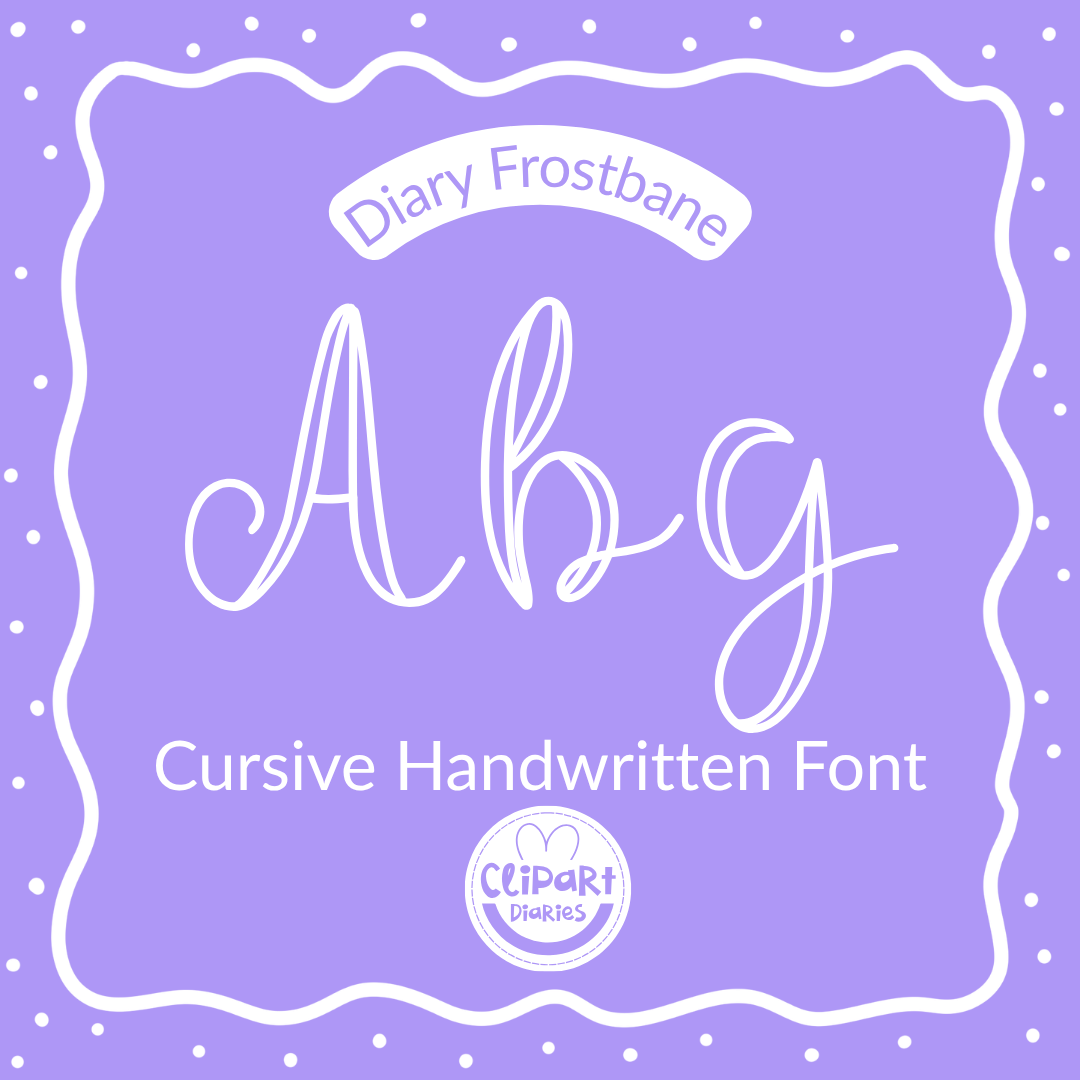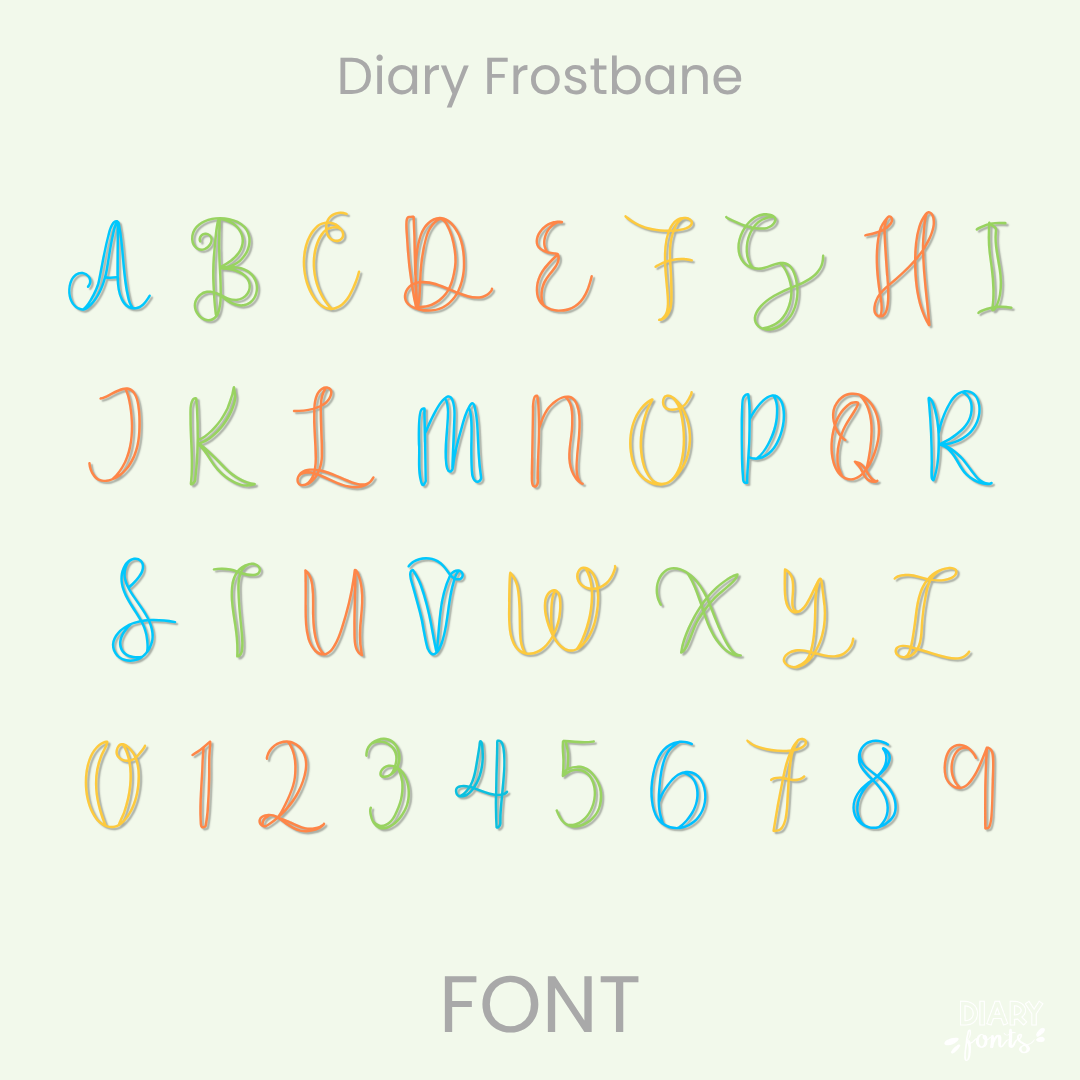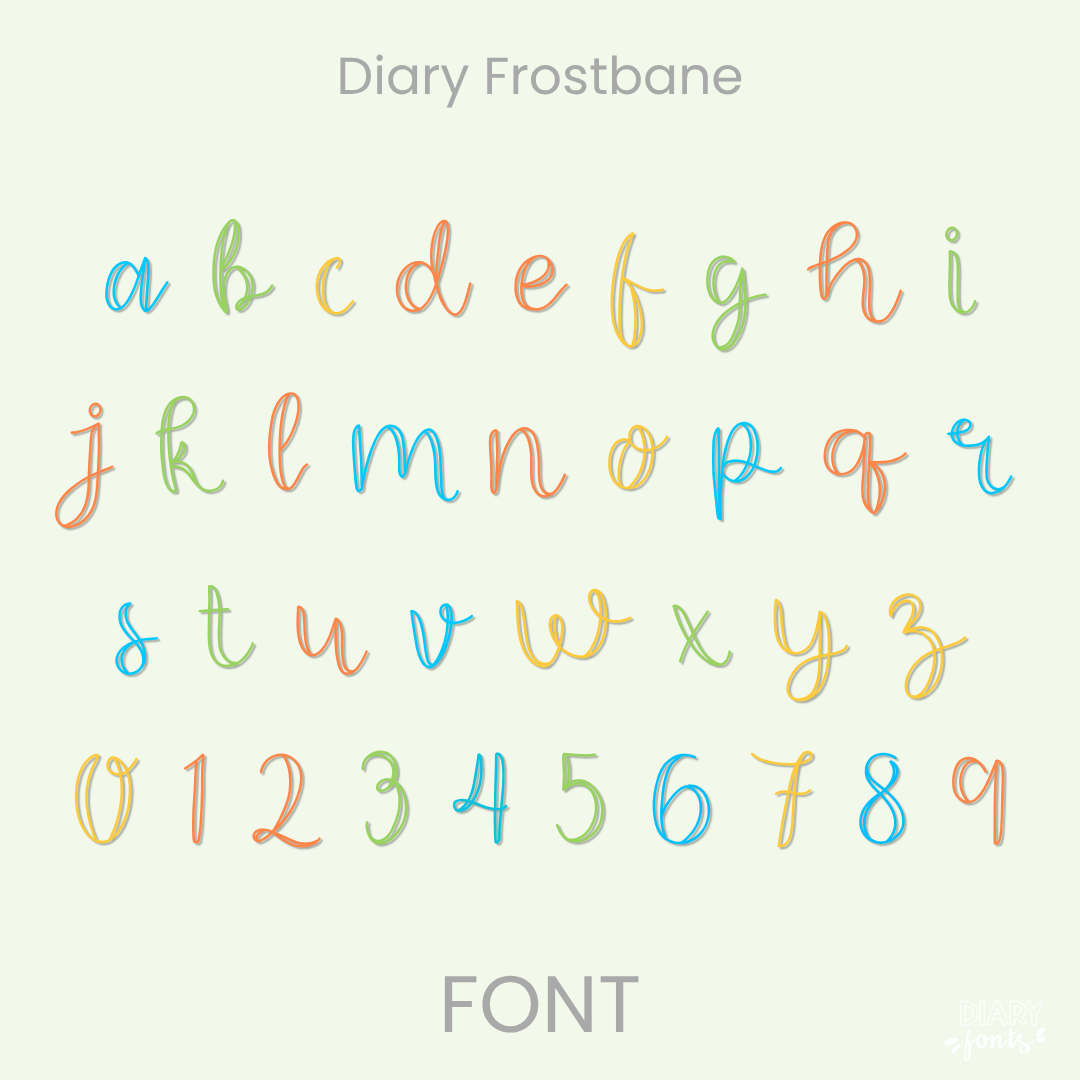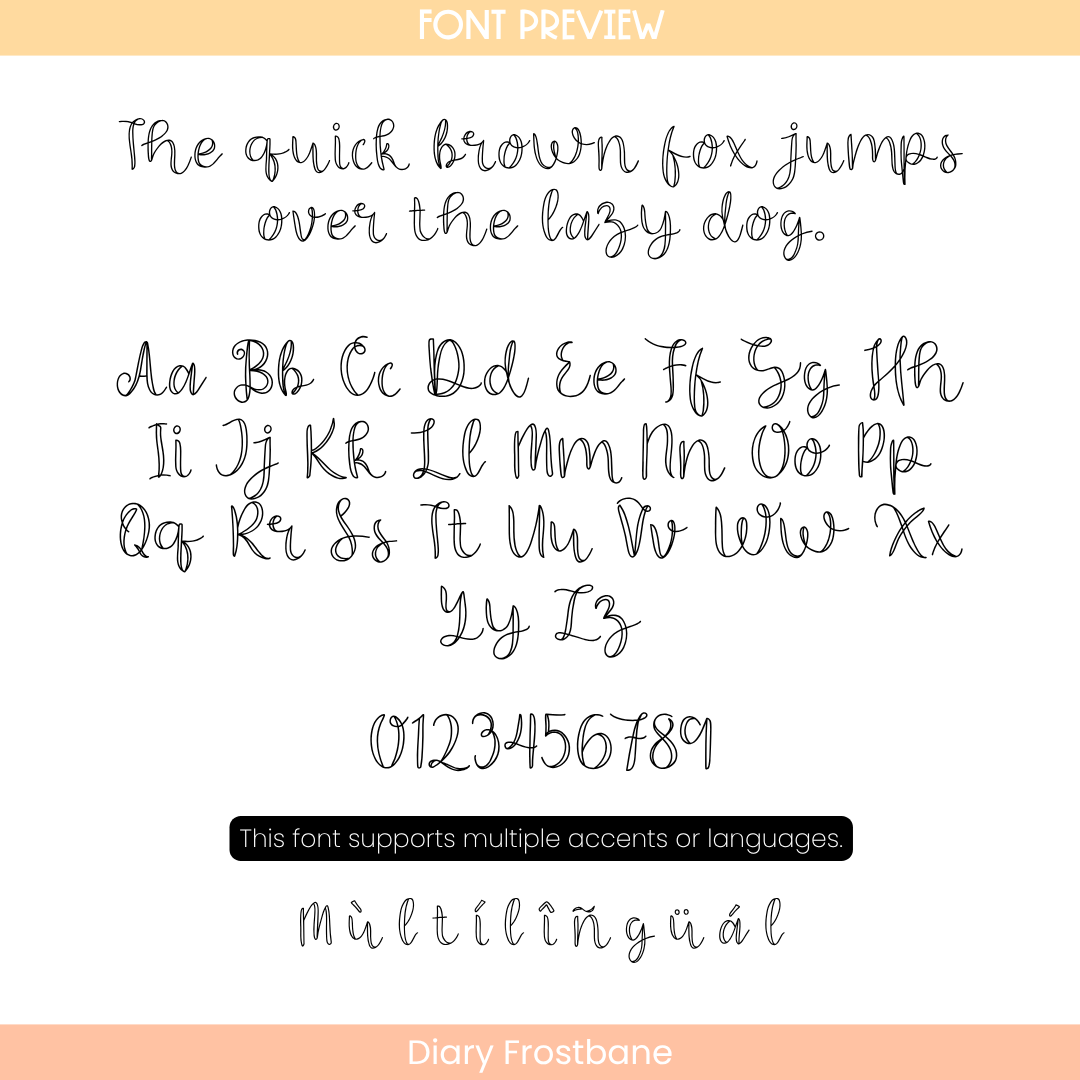
If you want to give your projects a graceful and artistic feel, Diary Frostbane is an excellent choice. It features fluid, connected script characters that mimic elegant cursive handwriting while remaining exceptionally clear and legible for students. This makes it a stunning option for eye-catching slide headers, poetry blocks, cursive writing prompts, and decorative classroom labels. The font includes a full set of uppercase and lowercase script letters, numbers, and multiple accents to support different languages. It is ready for use in Canva, MS Office, and Adobe Apps, and it works perfectly with iPad apps like GoodNotes and Procreate. Whether for personal classroom designs or commercial teacher resources, this font adds a polished and captivating hand-drawn aesthetic to your work.